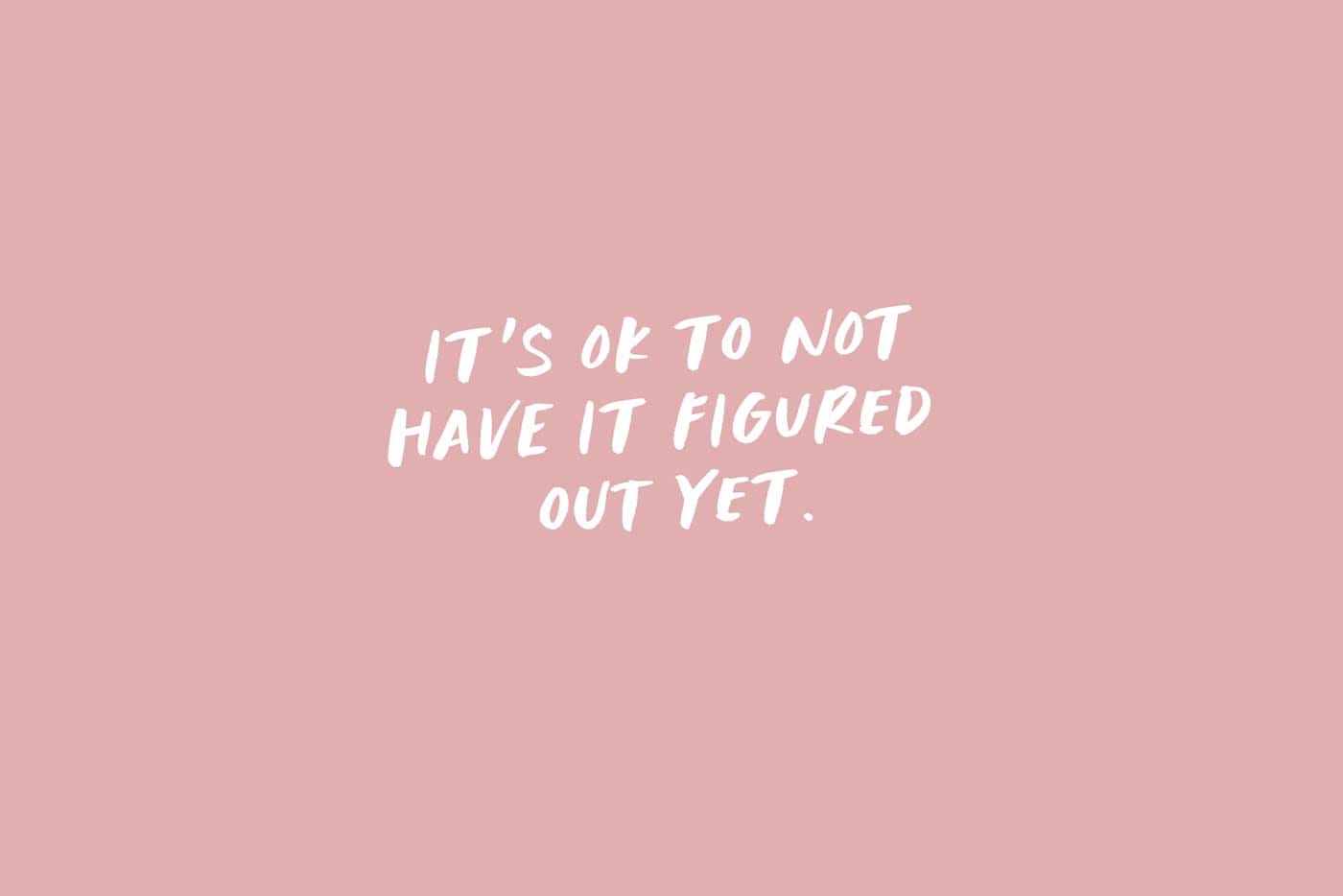
The Adventurous Creative’s Typeface Toolkit
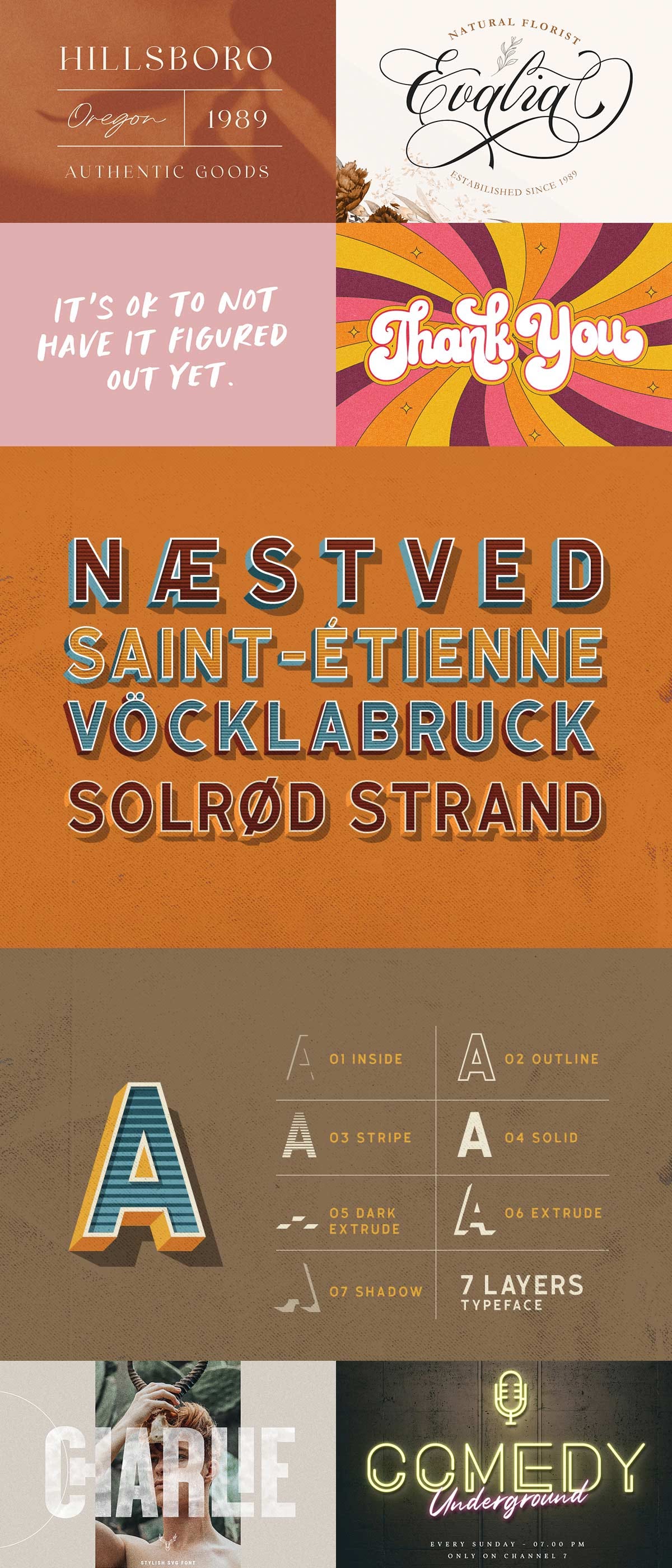
Get adventurous, that’s the motto of the latest font bundle deal. I was surprised that the last bundle I recommended was from June. High time for a new one. Time to fire up your imagination and creativity.
Just like always, a pretty diverse hand selected bunch of fonts ranging from retro to modern. No matter if you are going for sophistication or playfulness you’ll be able to achieve it all. You’ll find casual vibes, sharp style and textured design galore. The title of this collection of fonts is very well chosen as it is really an adventure. You’ll go western style or old English inspired stroke or discover far kingdoms to create your own fairy tale. The fun part is that it has it all for any design adventure you’ll to go on. These fonts can be used for headlines, logotypes, apparel, invitations, branding, packaging, advertising and more, there’s a whole world of creative possibilities waiting. Here’s only a small selection:
Lovadelic
A new retro script called Lovadelic is inspired from 70’s script lettering combined with psychedelic balloon typography. Lovadelic came with open type features such stylistic alternates, stylistic sets, contextual alternates & ligatures. The package also came with extras graphic to help you make stunning design.
Lovadelic typeface best uses are for headings, logo type, quotes, apparel design, invitations, flyer, poster, greeting cards, product packaging, book cover, printed quotes, cover album, movie, etc
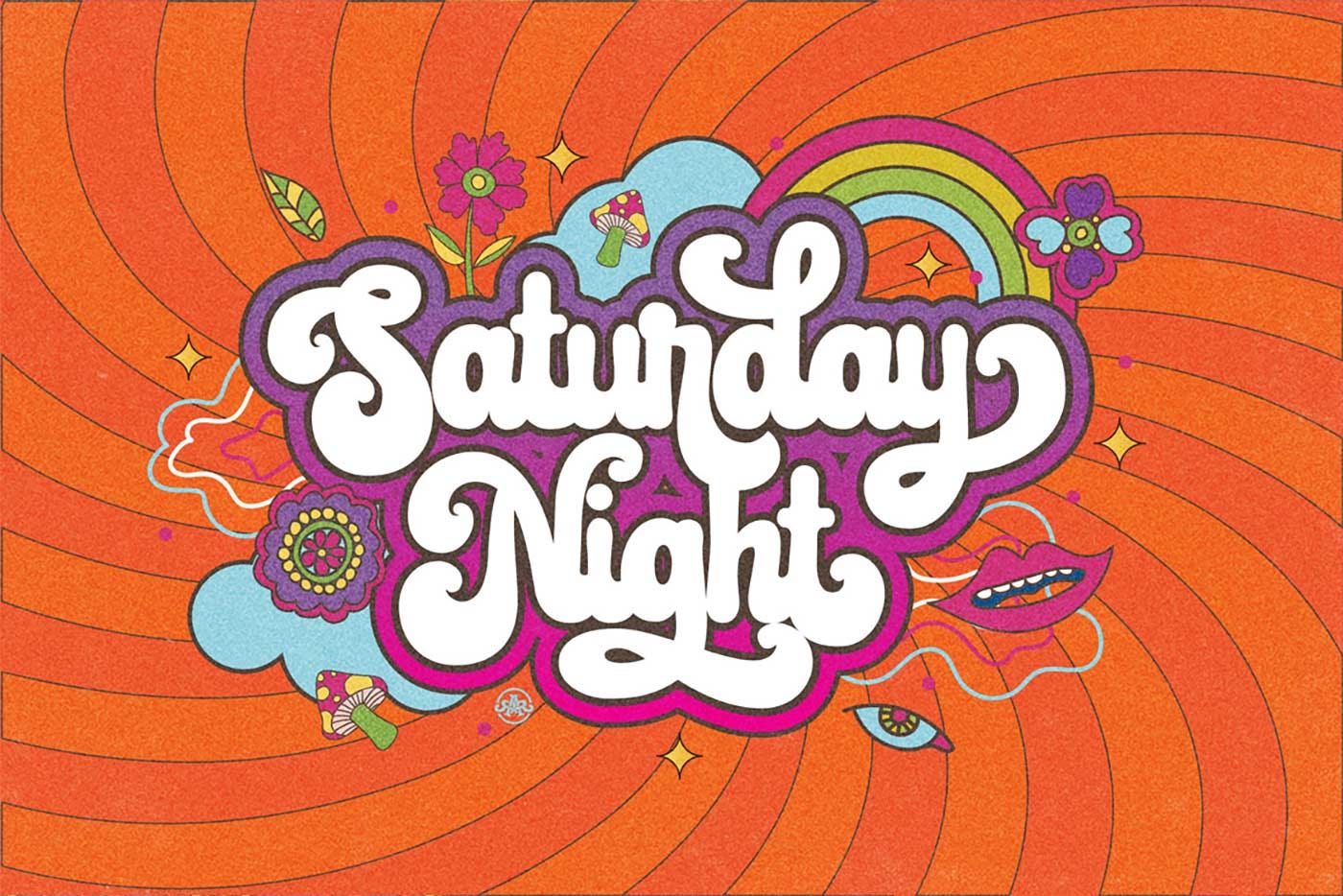
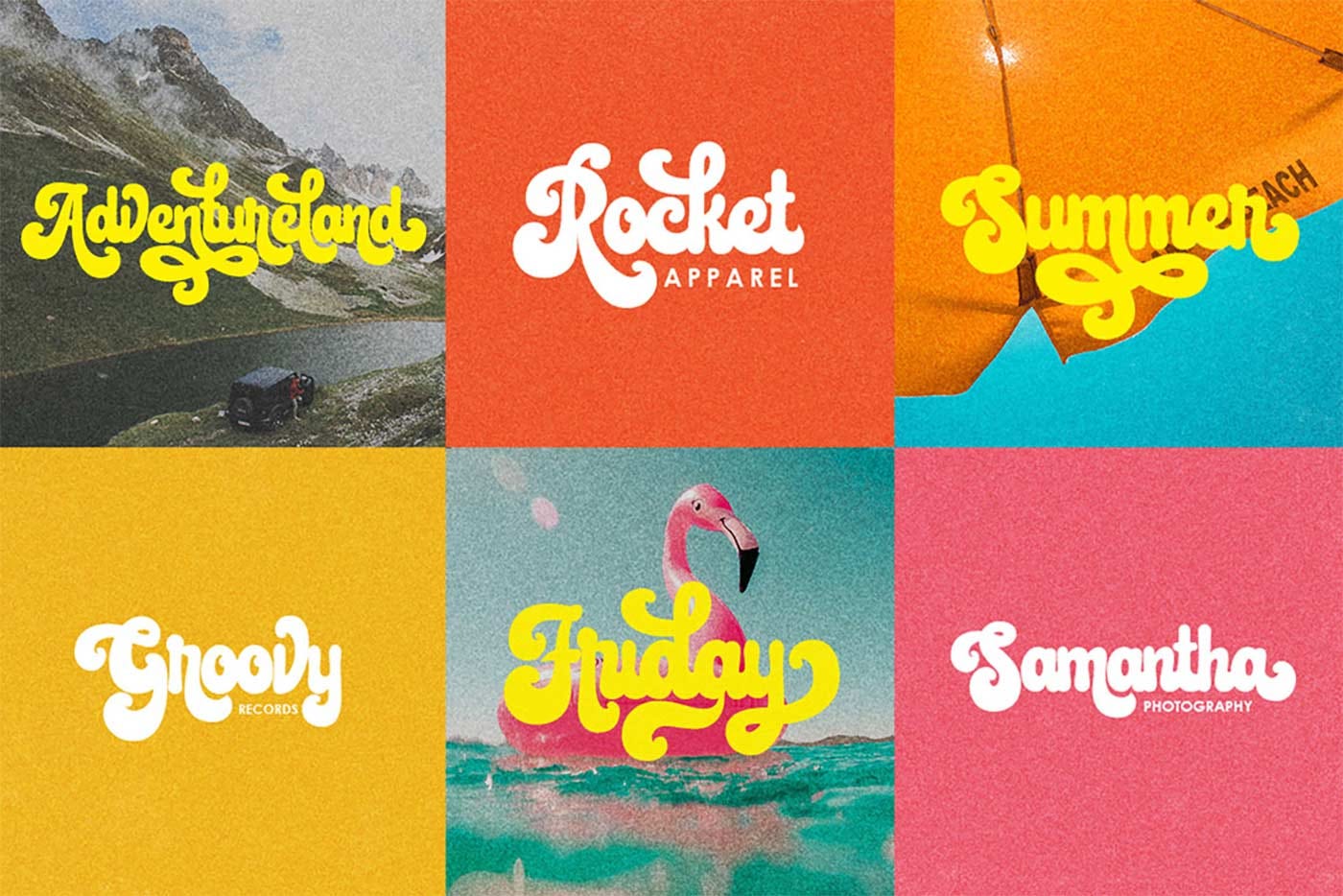
Gardena Holmes — Font Duo
Gardena Holmes — Font Duo | Serif & Script with bonus editable logo. Gardena Holmes is a perfect combination between classic serif and a signature script. It contain two fonts, the delicate modern serif and a free handwriting script. This font duo supports multilingual, numbers & symbols, end swashes and many ligatures. Also, this font is already PUA Encoded, and it includes an exclusive bonus, 6 beautiful pre-made logos which will make it easier for you to make a logo! PUA stands for “Private Use Areas”. When a font is PUA encoded it means that you can access all special characters such as the flourishes and swirly lines through Windows and Mac.
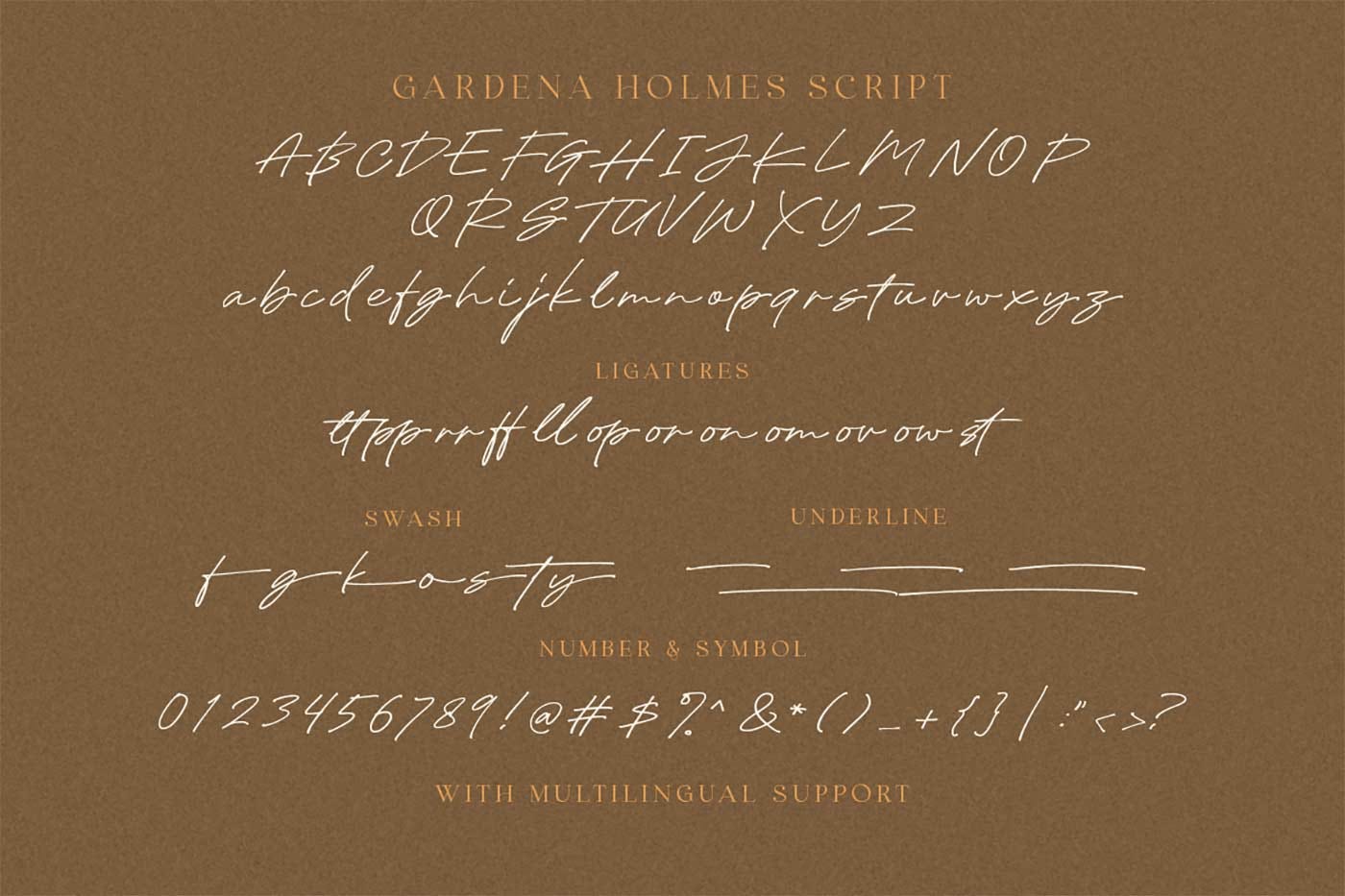
Calasans — 7 Layered Fonts
Calasans is a sans serif font with 7 layered style. You can create a 3D look without using any add-ons, only with fonts! This font is suitable for a vintage poster, 3D type, or retro including numbers and punctuations., with multi language support. Create your own 3D type now!
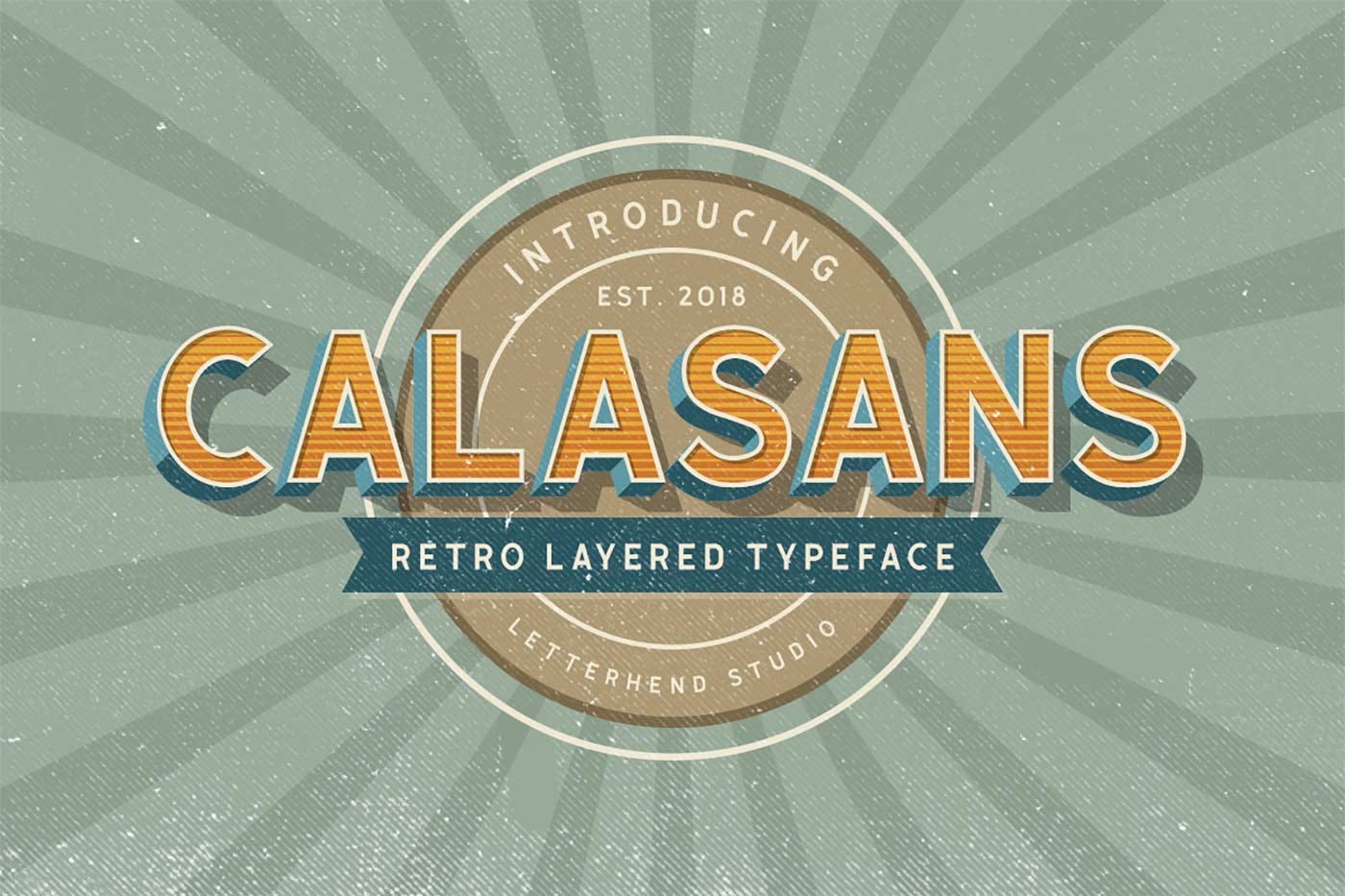
Foxglove SVG Font
Foxglove is a playful, minimal brush font designed to add a personal & relatable quality to quotes, branding, promotional images and product designs. Foxglove comes in two versions; an Opentype-SVG with built-in transparent watercolour textures, and a regular version with a filled in, solid texture. The Opentype-SVG fonts require Photoshop CC 2017, Illustrator CC 2018, or Procreate 4.3 (or newer) to use.
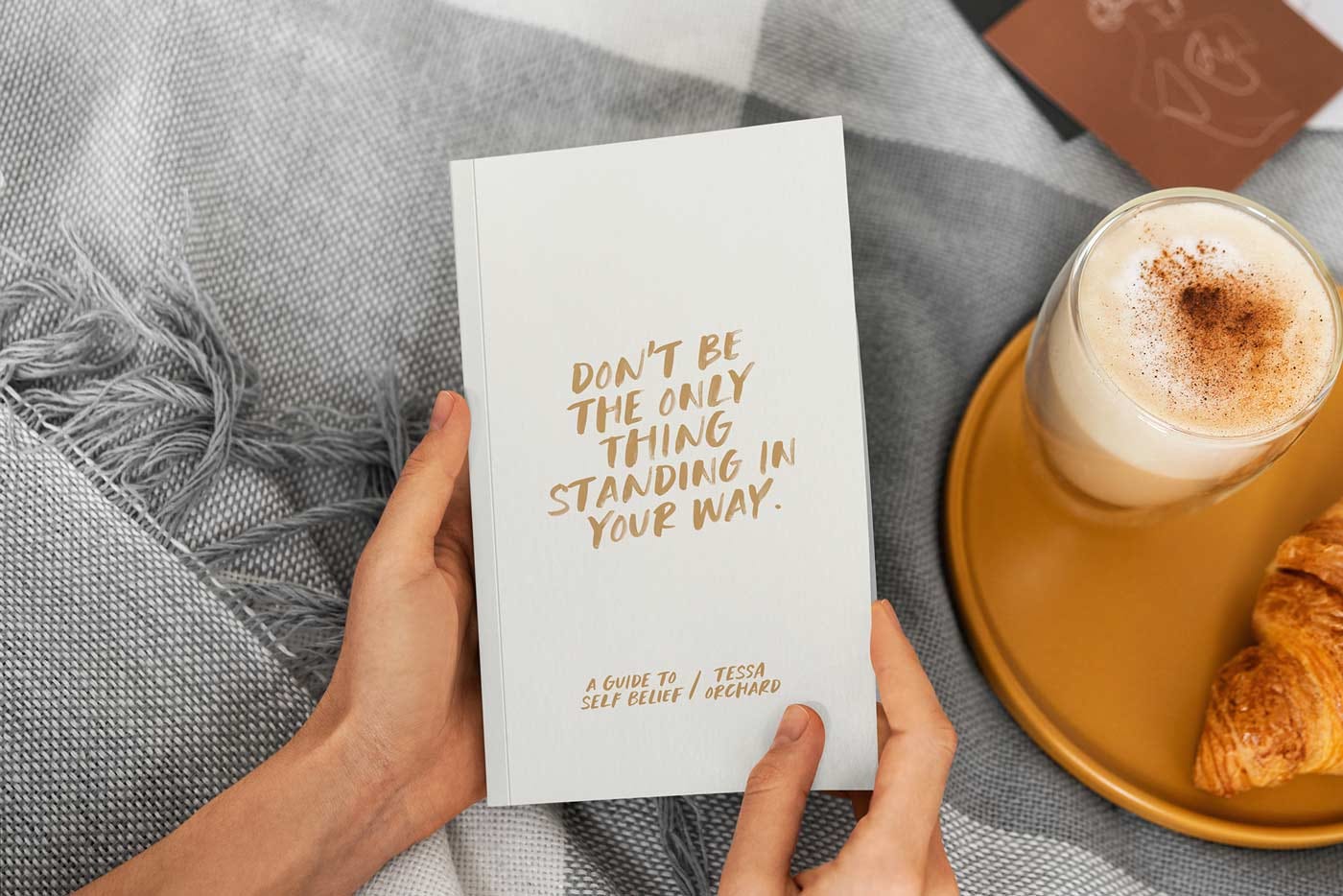
North Western Font + Vectors Bundle
This is a collection of fonts and vector graphics inspired by the northwestern region of America. Once the creator sat down and started sketching the set, it became so big that he split them into 3 volumes. This bundle includes all three of those volumes!